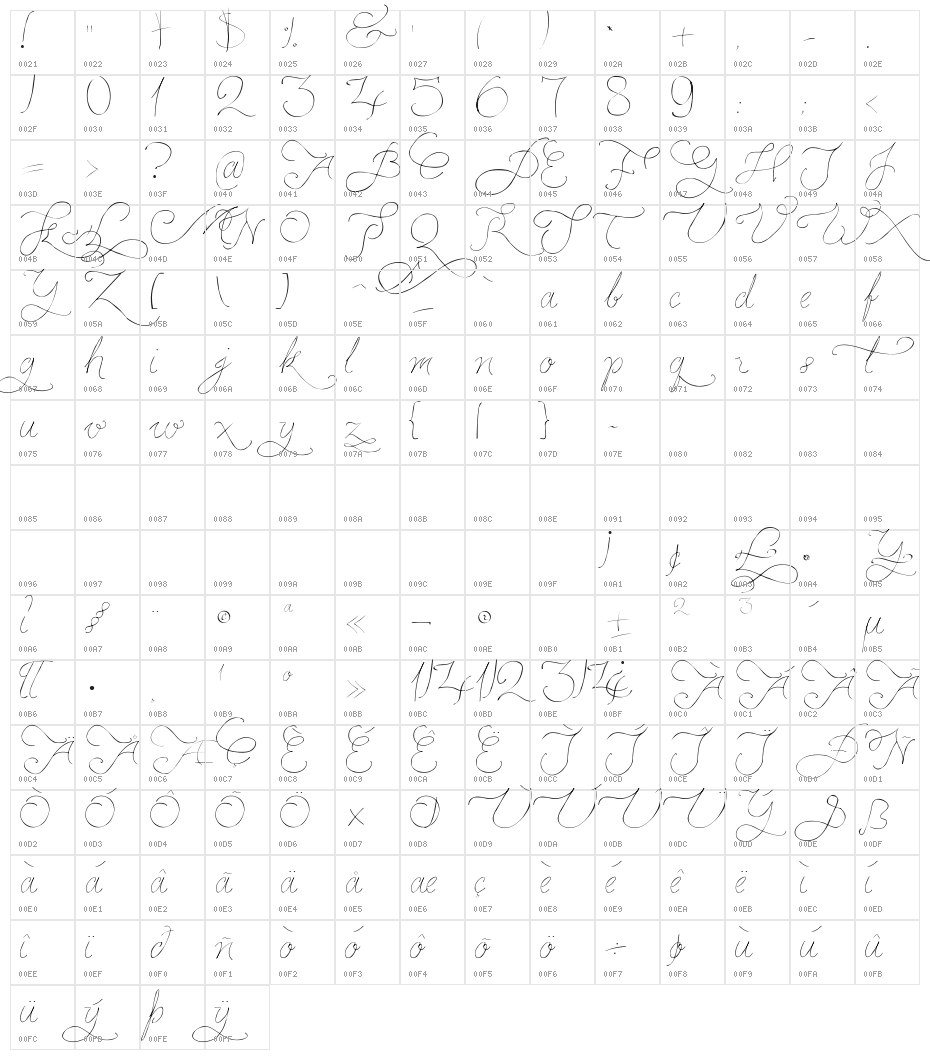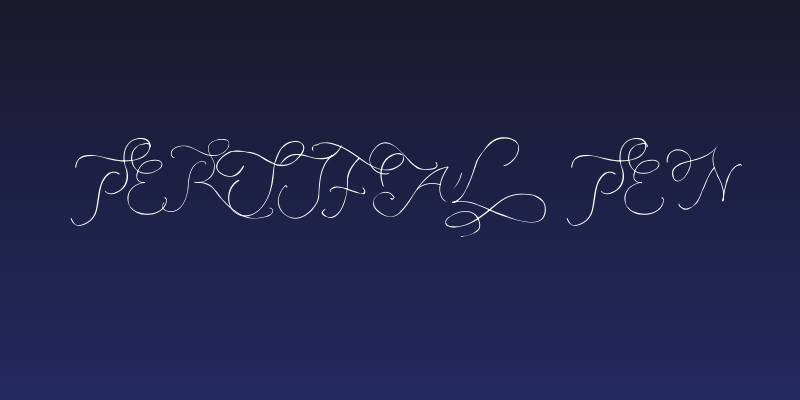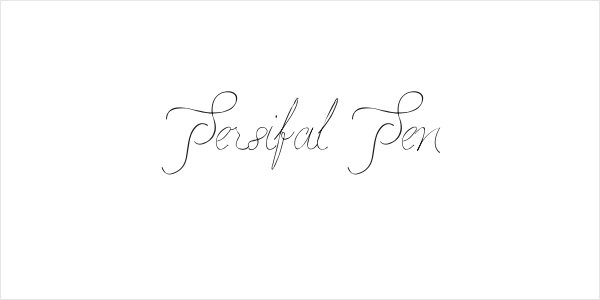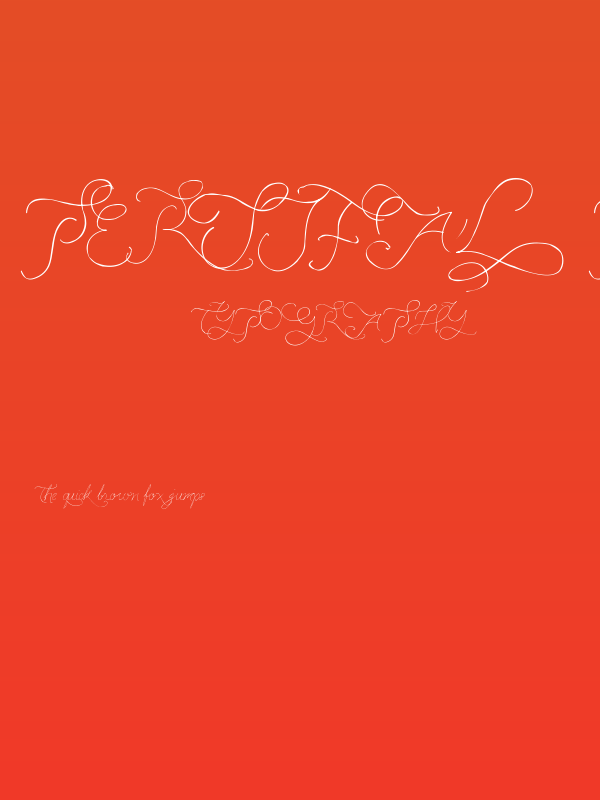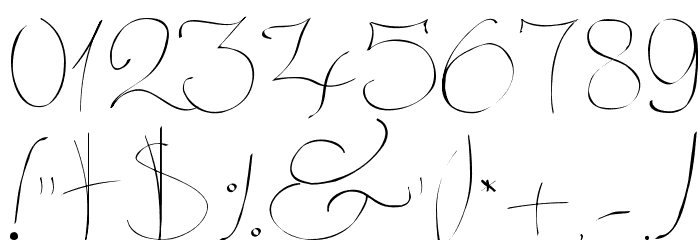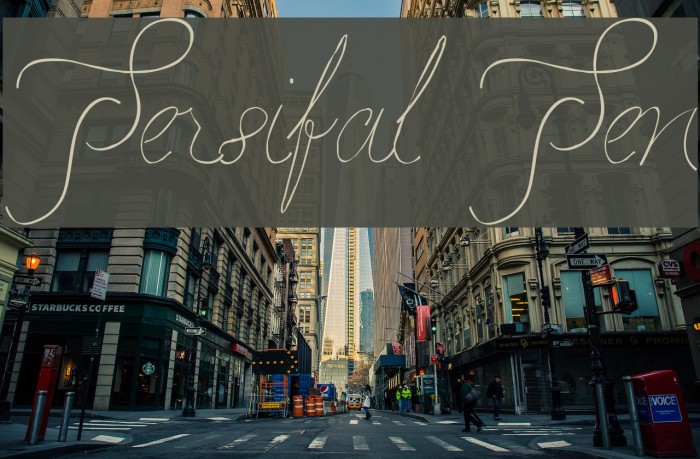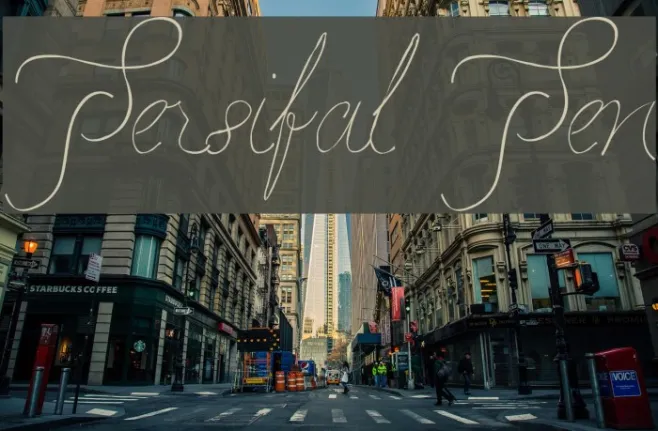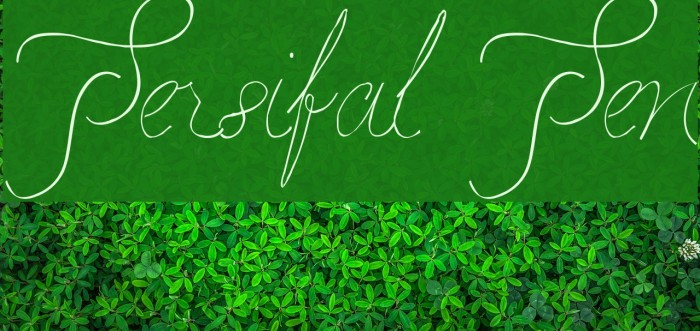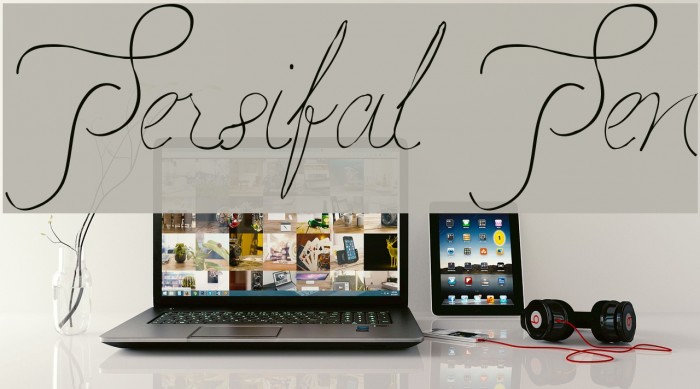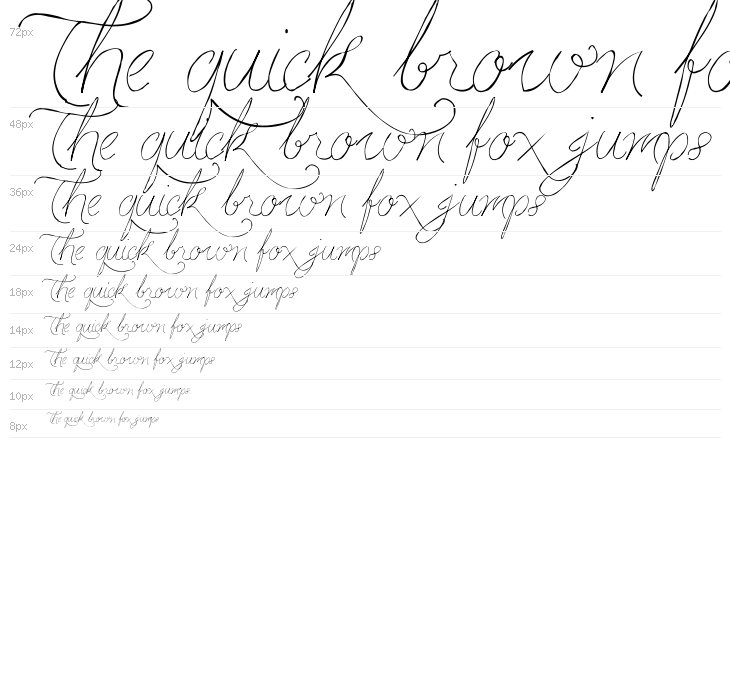
Persifal Pen Font
Persifal Pen Description
This font features an elegant and flowing script style, characterized by its intricate and ornate letterforms. The uppercase letters are adorned with elaborate swashes and loops, creating a sense of sophistication and grace. The lowercase letters maintain a consistent flow, with smooth, curving lines that enhance readability while retaining a decorative flair. The numerals and special characters are designed with the same attention to detail, ensuring a cohesive look across all glyphs. This font's delicate strokes and high contrast between thick and thin lines give it a refined and luxurious appearance, ideal for formal and artistic applications.
| Proposed Projects | Ideal for wedding invitations, luxury branding, elegant stationery, and artistic projects. |